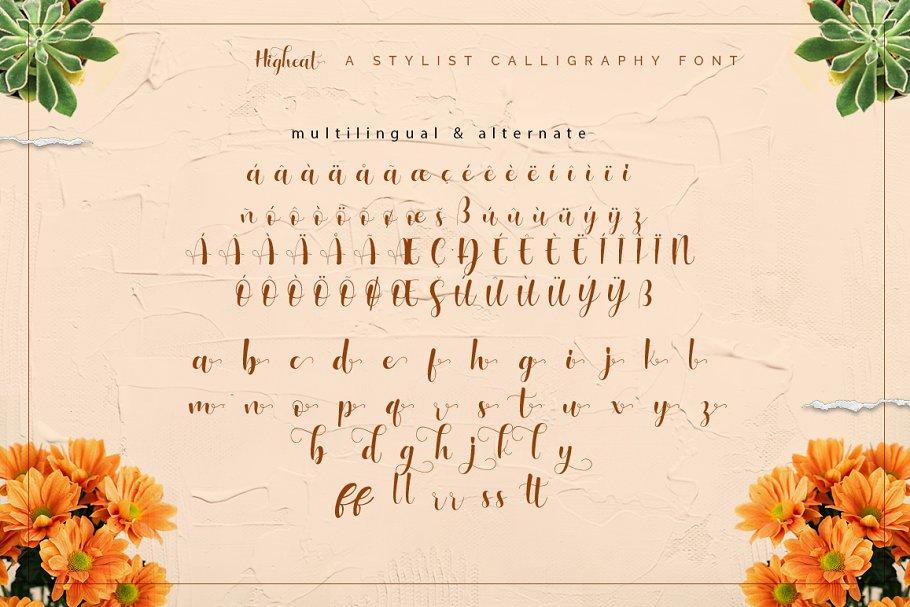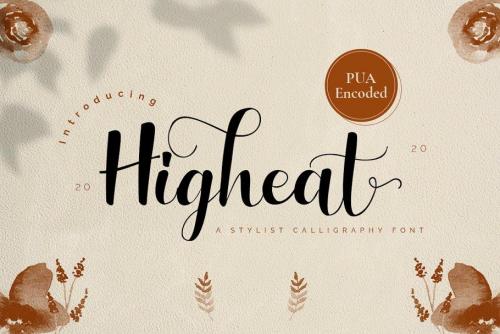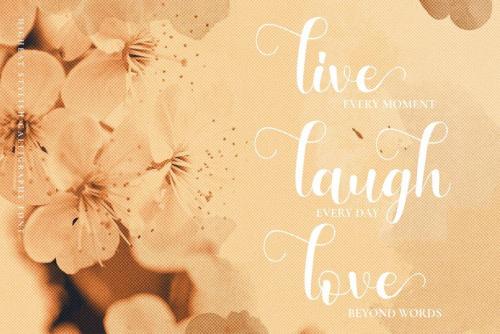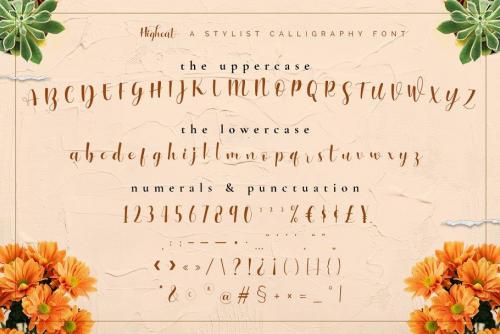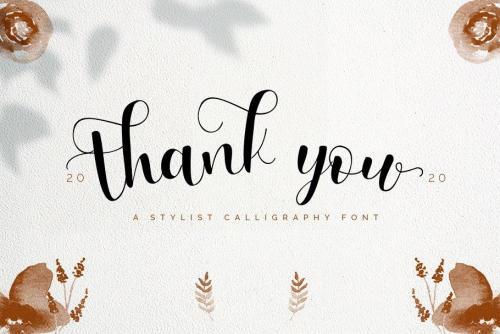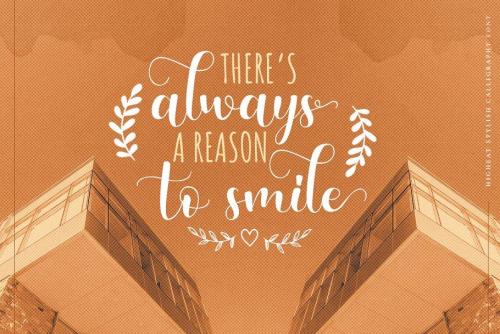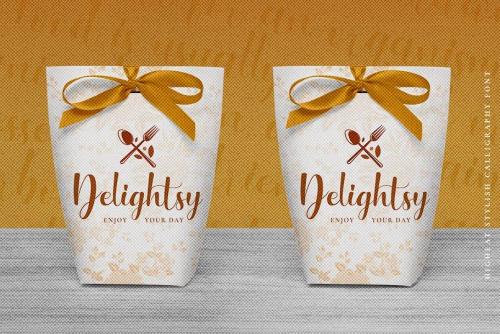
Higheat Stylish Calligraphy script is perfect font pairing with tails alternates character. Highest Stylish Calligraphy script is a modern hand lettering script. It’s allowing you to create beautiful hand-made typography in an instant.
Higheat Stylish Calligraphy script perfect to use for any kind of design such as branding projects, logo, brochures, business card, wedding designs, social media posts, advertisements, product packaging, product designs, label, photography, watermark, invitation, brand company, stationery and any projects that need handwriting taste.
- Designer: PuriCreative